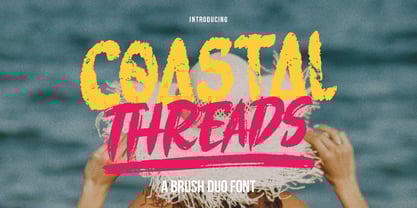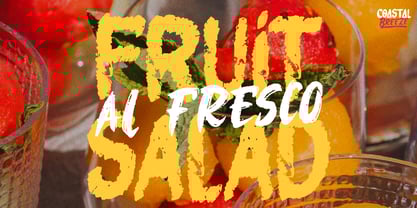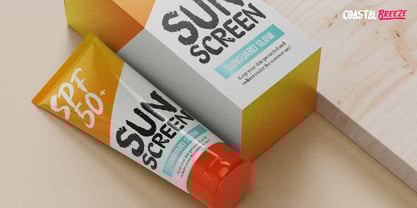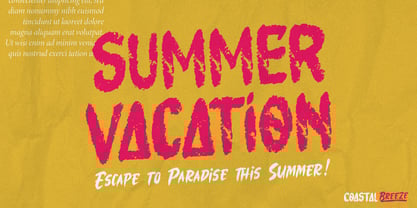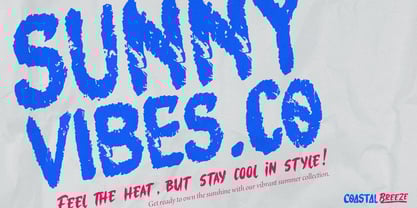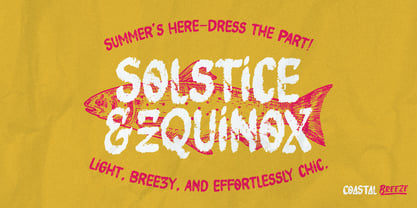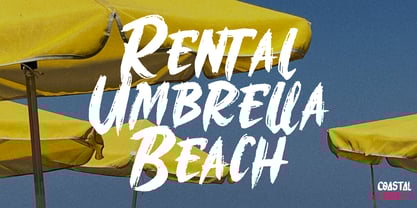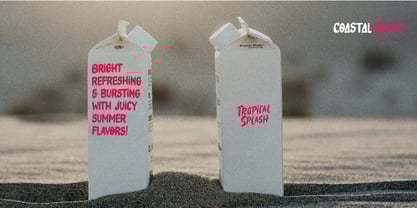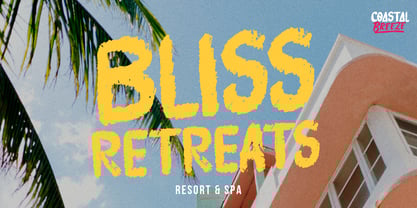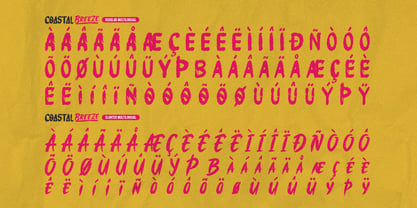
Coastal Threads
von Denustudio
Die Schriftfamilie Coastal Threads wurde von Dede Nugraha entworfen und von Denustudio veröffentlicht. Coastal Threads enthält 1 Stile.
Coastal Threads | Brush Duo Font, from Denustudios, suitable for any projects such as: logos, branding projects, homeware designs, product packaging, mugs, quotes, posters, shopping bags, t-shirts, book covers, name card, invitation cards, greeting cards, label, photography, watermark, special events, and all your other lovely projects that need a Brush Duo Font taste.
• Regular and Italic
• Alternate and Ligature
Designer: Dede Nugraha
Herausgeber: Denustudio
Foundry: Denustudio
Eigentümer des Designs: Denustudio